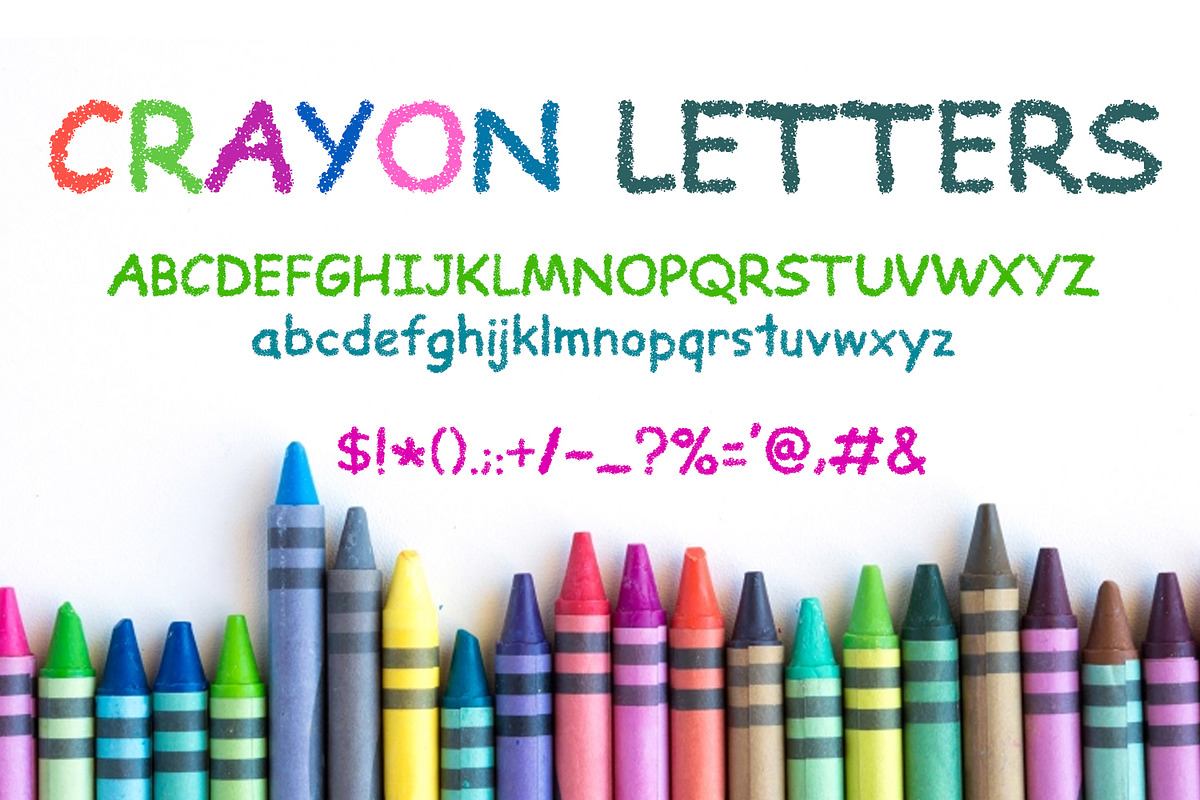
You must purchase this font for commercial use. However, you can download Crayon Letters Font Free Download for testing purposes. Crayon Letters is a playful and whimsical font that mimics the look of crayon-drawn letters. With its fun, hand-drawn aesthetic, this font is perfect for children’s designs, school projects, greeting cards, posters, and anything that needs a creative and lighthearted touch.
The informal, irregular strokes of Crayon Letters make it ideal for projects that want to evoke joy, creativity, and a playful spirit. Whether you're working on a children’s brand, crafting an educational tool, or designing a fun event invitation, this font adds personality and charm to your typography.